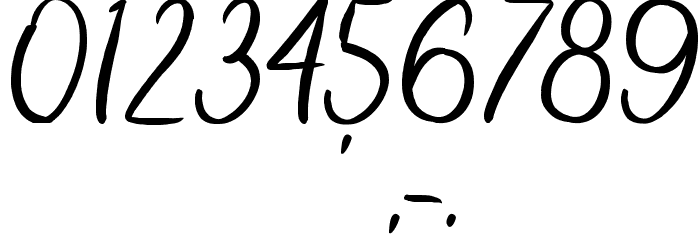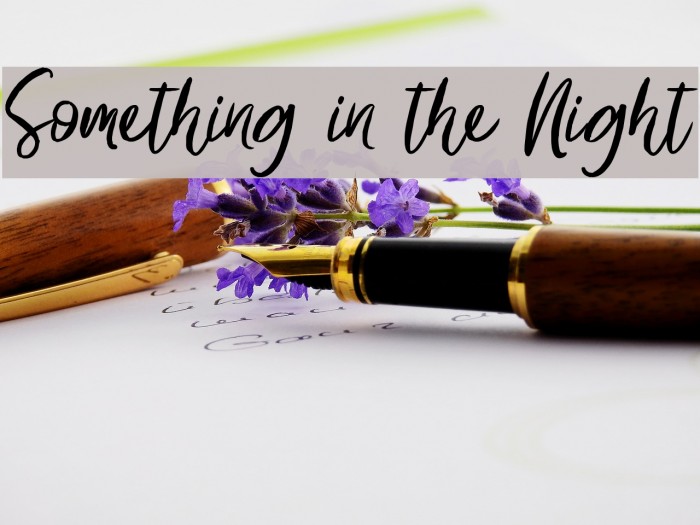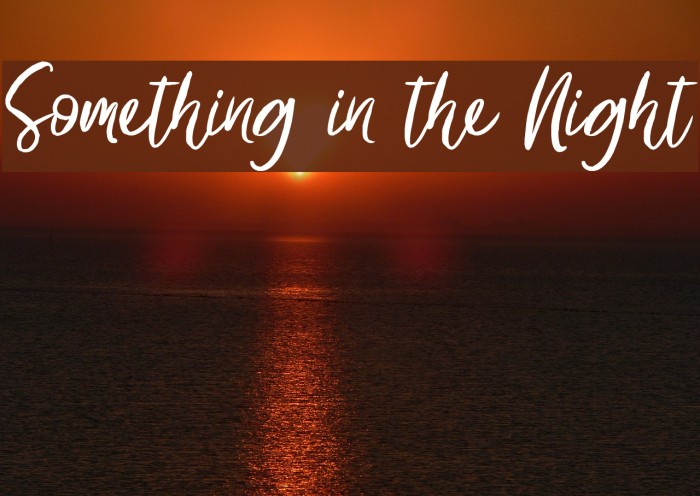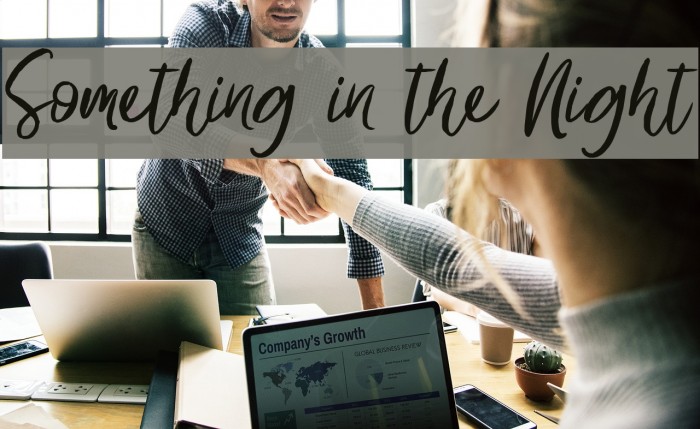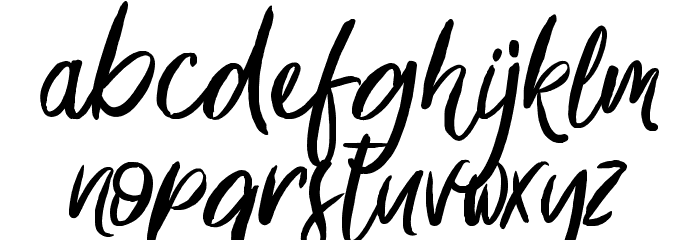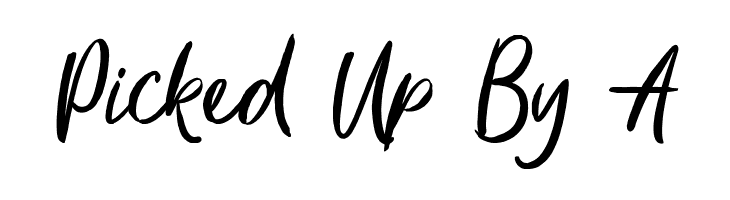
Something in the Night Font
Something in the Night Description
This font features a dynamic and expressive handwritten style, characterized by its fluid strokes and natural flow. The uppercase letters are bold and slightly slanted, giving a sense of movement and energy. The lowercase letters maintain a consistent style, with smooth curves and a casual, yet elegant appearance. The numbers are clear and legible, matching the overall aesthetic of the font. Special characters are included, maintaining the same handwritten style, adding versatility for various uses. The font's organic and personal touch makes it suitable for creative projects that require a human element.
A dynamic, expressive handwritten font with fluid strokes and natural flow from Handwritten fonts.
- Proposed Projects: Ideal for greeting cards, invitations, personal branding, and creative projects that require a personal touch.
- Use Case: Logos, Headlines, Creative projects